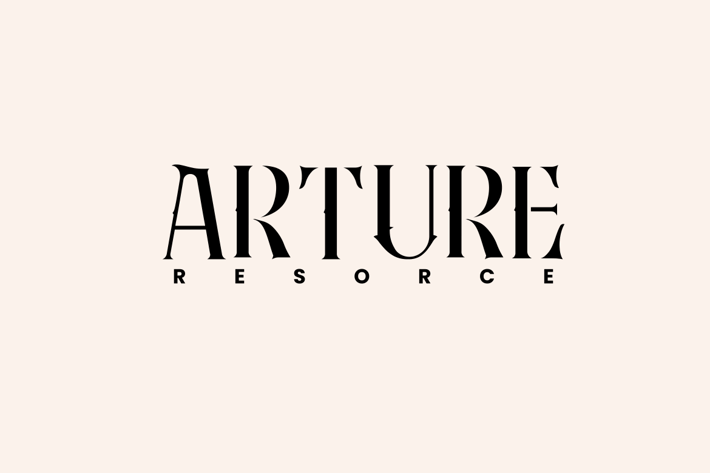
Arture - Vintage Font
Introducing Arture, an elegant, vintage, and beauty serif font. Its unique and lovely feel.
So perfect for you who needs a typeface for logo designs, magazine, social media, brochure, and many more.